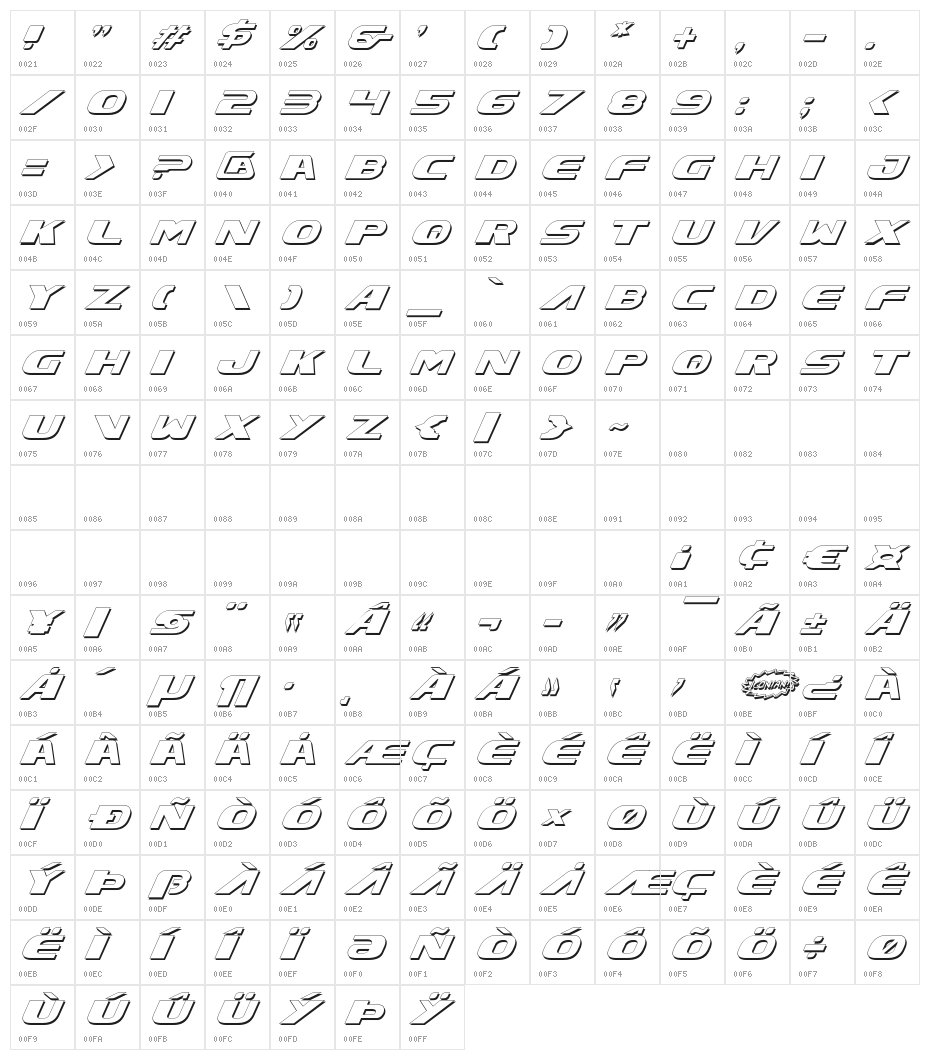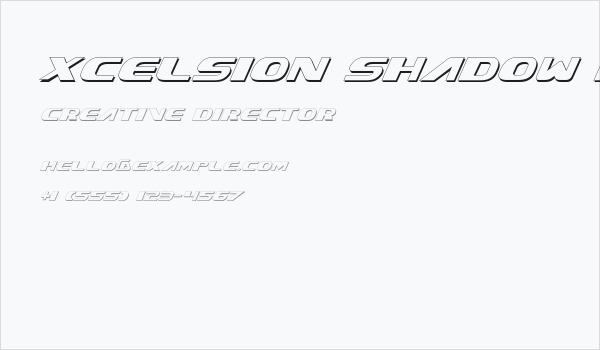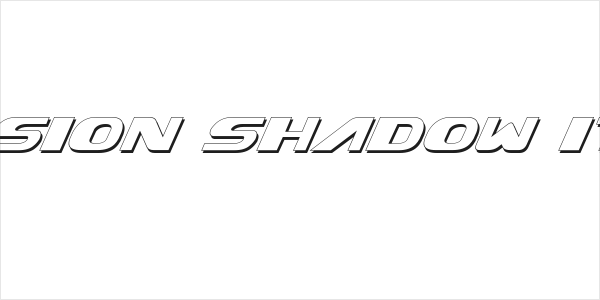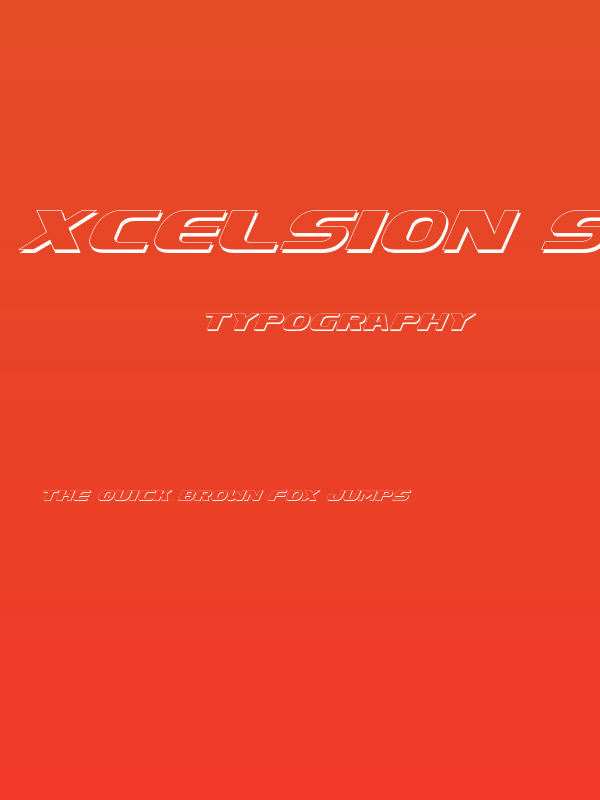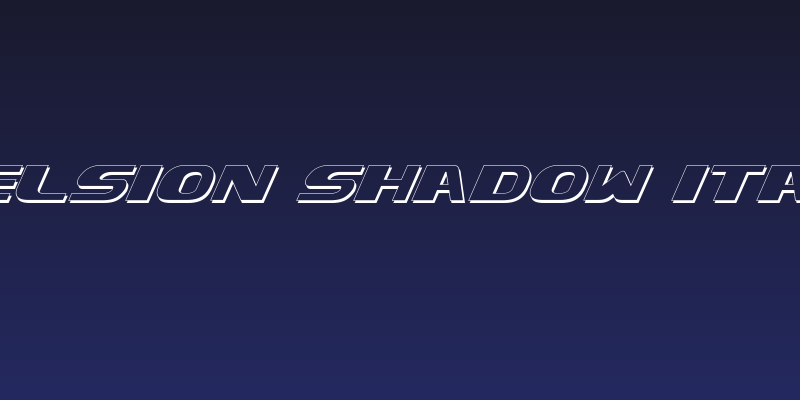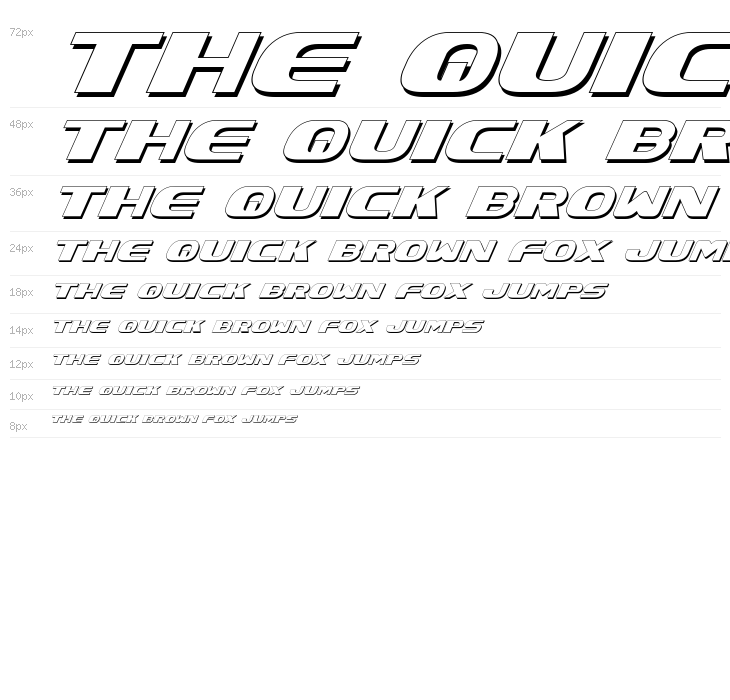
Xcelsion Shadow Italic Font
Xcelsion Shadow Italic Description
This font features a bold, italicized style with a distinct shadow effect that gives it a three-dimensional appearance. The characters are uppercase and lowercase with a consistent slant, enhancing the dynamic and energetic feel. The numbers and special characters follow the same design principles, ensuring uniformity across all glyphs. The shadow adds depth, making it suitable for eye-catching designs. The overall look is modern and sleek, ideal for projects that require a strong visual impact.